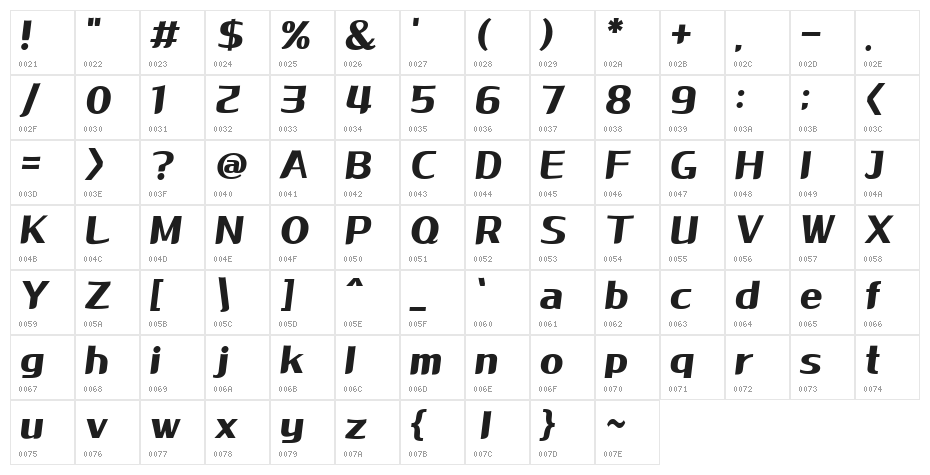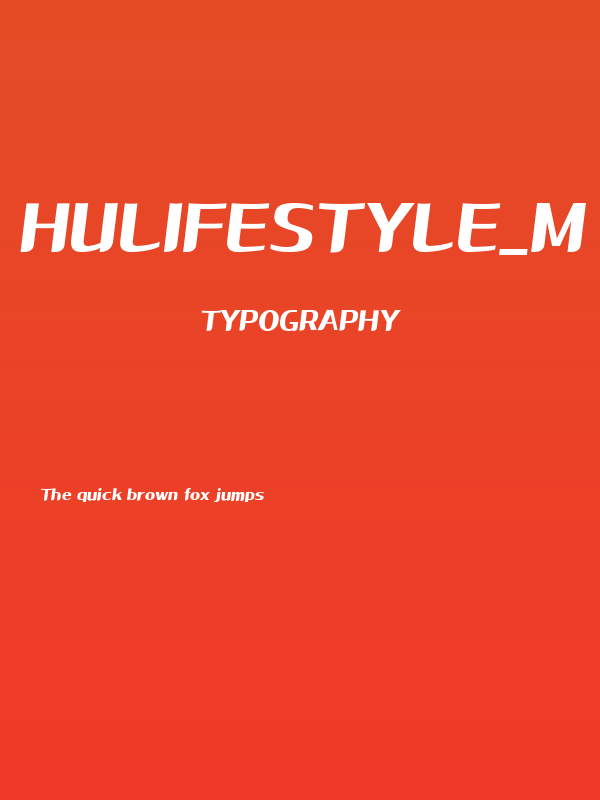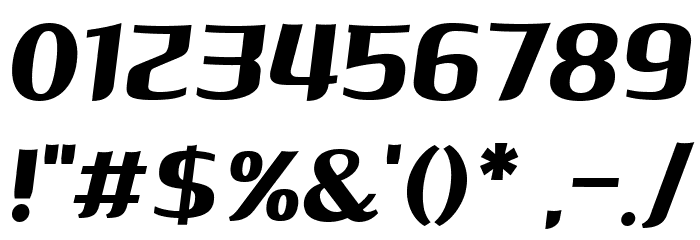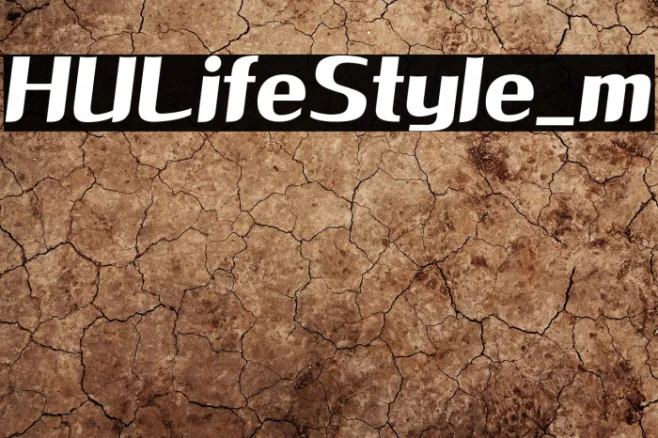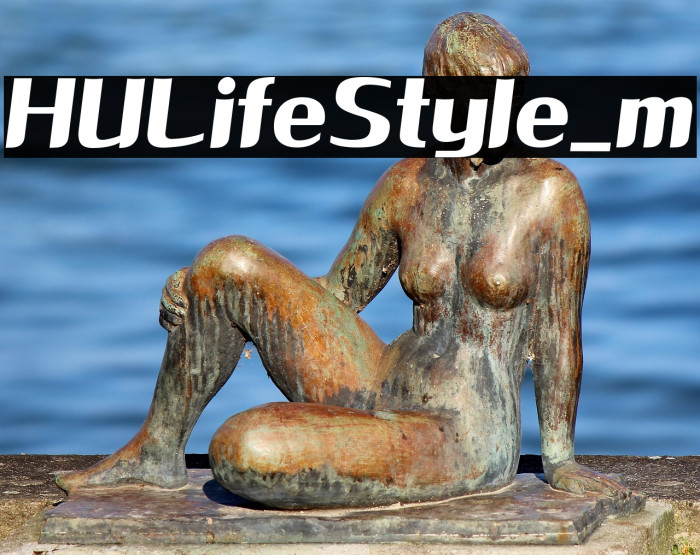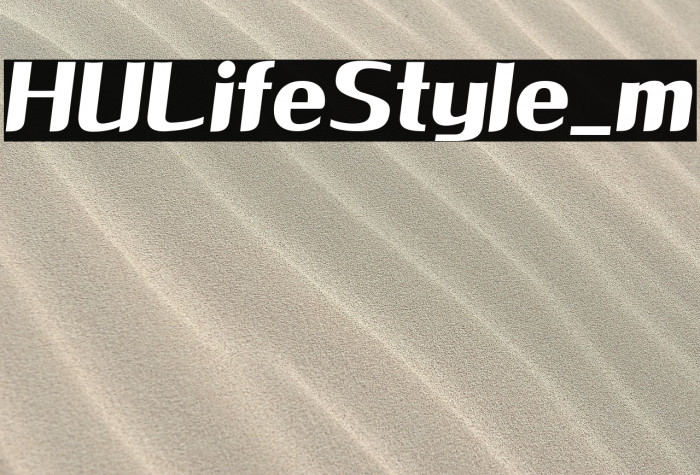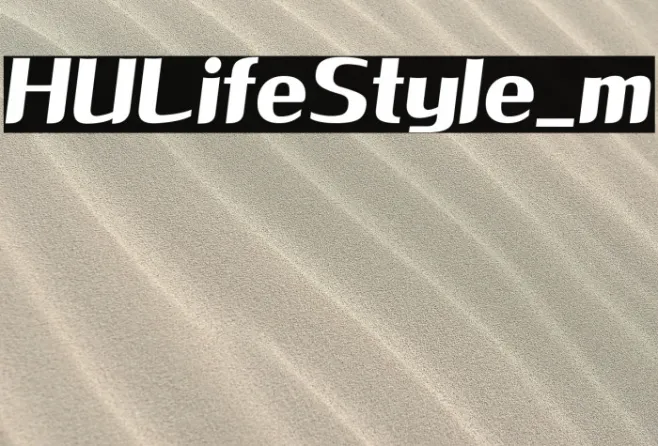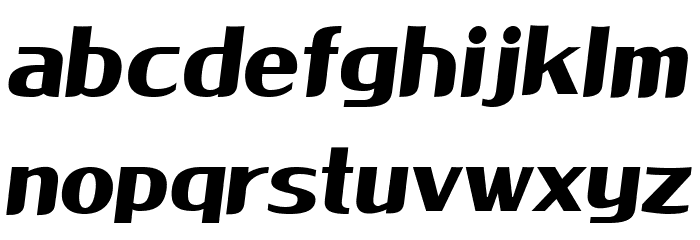
HULifeStyle_m Font
HULifeStyle_m Description
This font features a dynamic and modern design with a slight italic slant, giving it a sense of motion and energy. The characters are bold and robust, with smooth curves and a consistent stroke width that maintains readability. The uppercase letters are slightly taller than average, providing a commanding presence, while the lowercase letters are well-proportioned and complement the uppercase set. The numerals are clear and distinct, making them suitable for various applications. Special characters are designed with the same attention to detail, ensuring they integrate seamlessly with the rest of the font.
| Proposed Projects | Ideal for branding, advertising, headlines, and digital content that requires a modern and energetic look. |